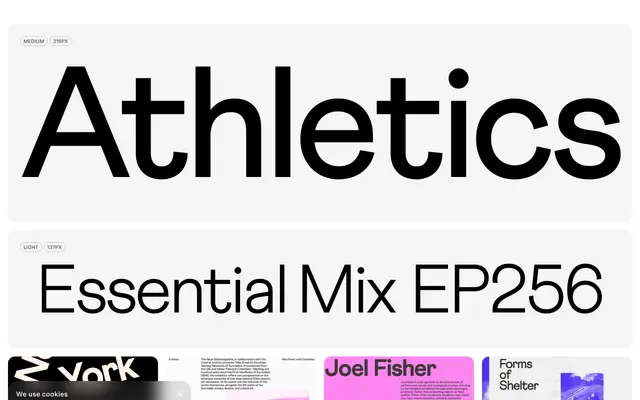
Athletics
A geometric sans designed by Briton Smith in 2018, offered in 14 styles with extensive Latin language support and a suite of OpenType features.
Designed by Briton Smith and released through Family Type in 2018, Athletics is a geometric sans available in 14 styles across multiple weights. The character set covers an unusually wide range of Latin-based languages alongside Greek, with OpenType features including stylistic sets, fractions, superscripts, subscripts, and tabular figures. Its clean construction and measured proportions suit display use, editorial work, and identity applications where a structured, neutral sans is needed.
Athletics presents clean, constructed letterforms with geometric proportions and open apertures, consistent with the geometric sans tradition. The specimen and glyph samples suggest a rational, structured design without humanist warmth.